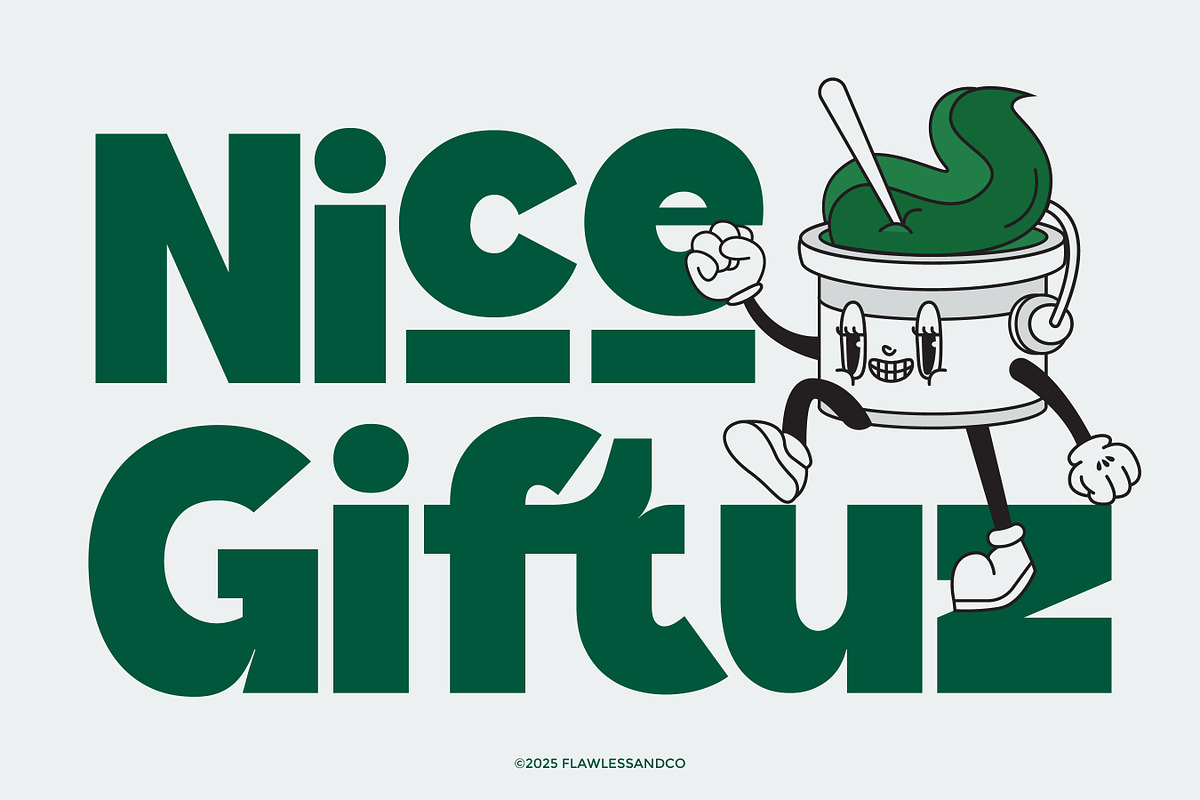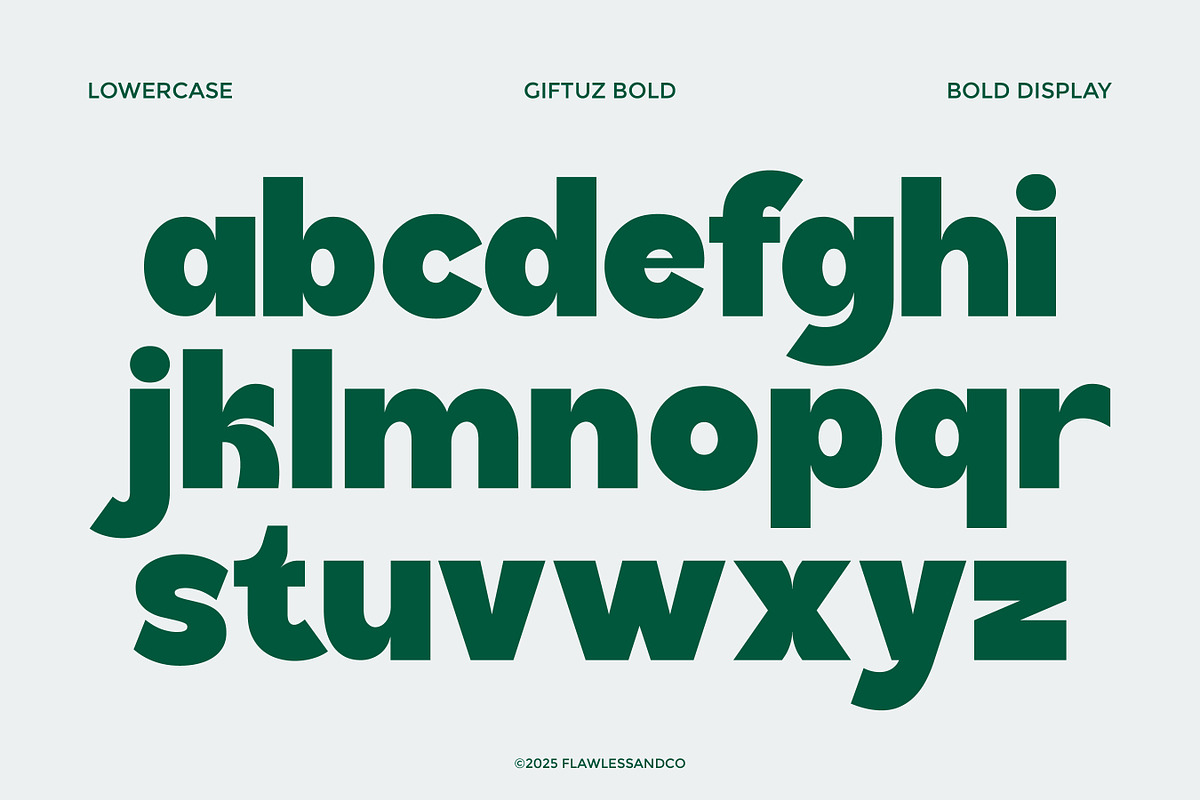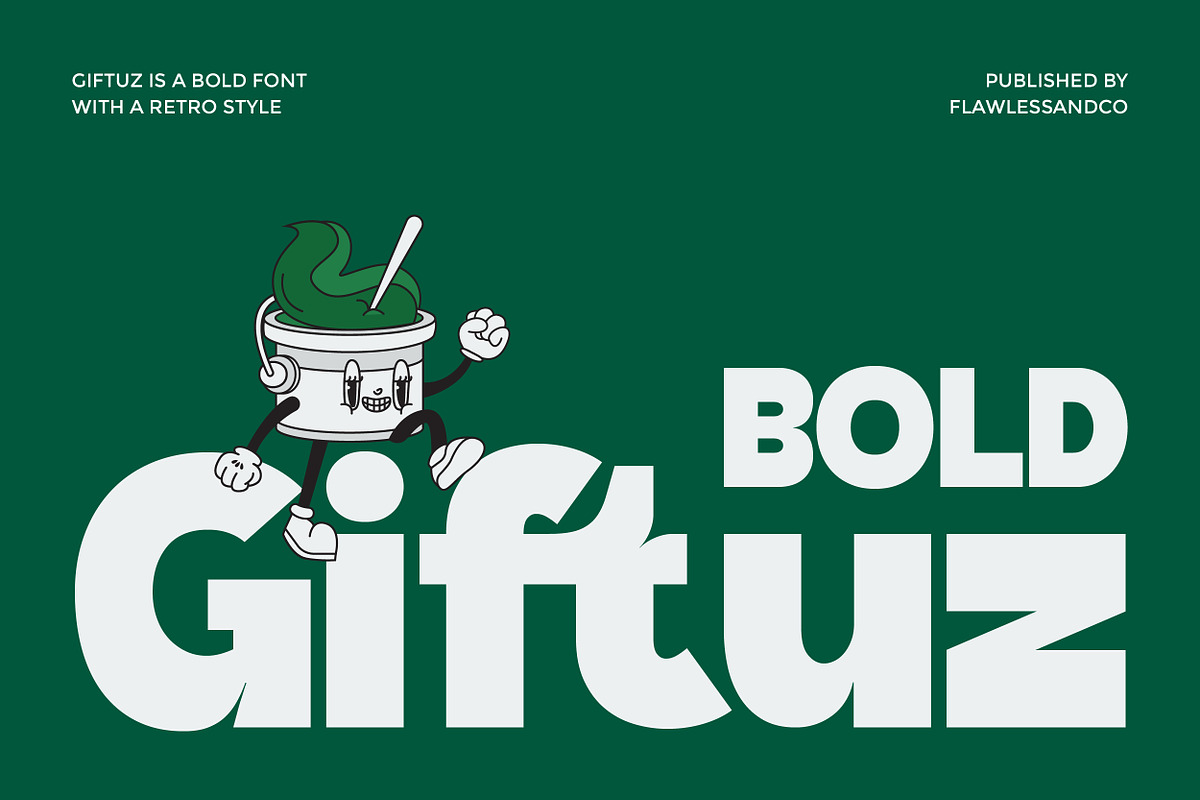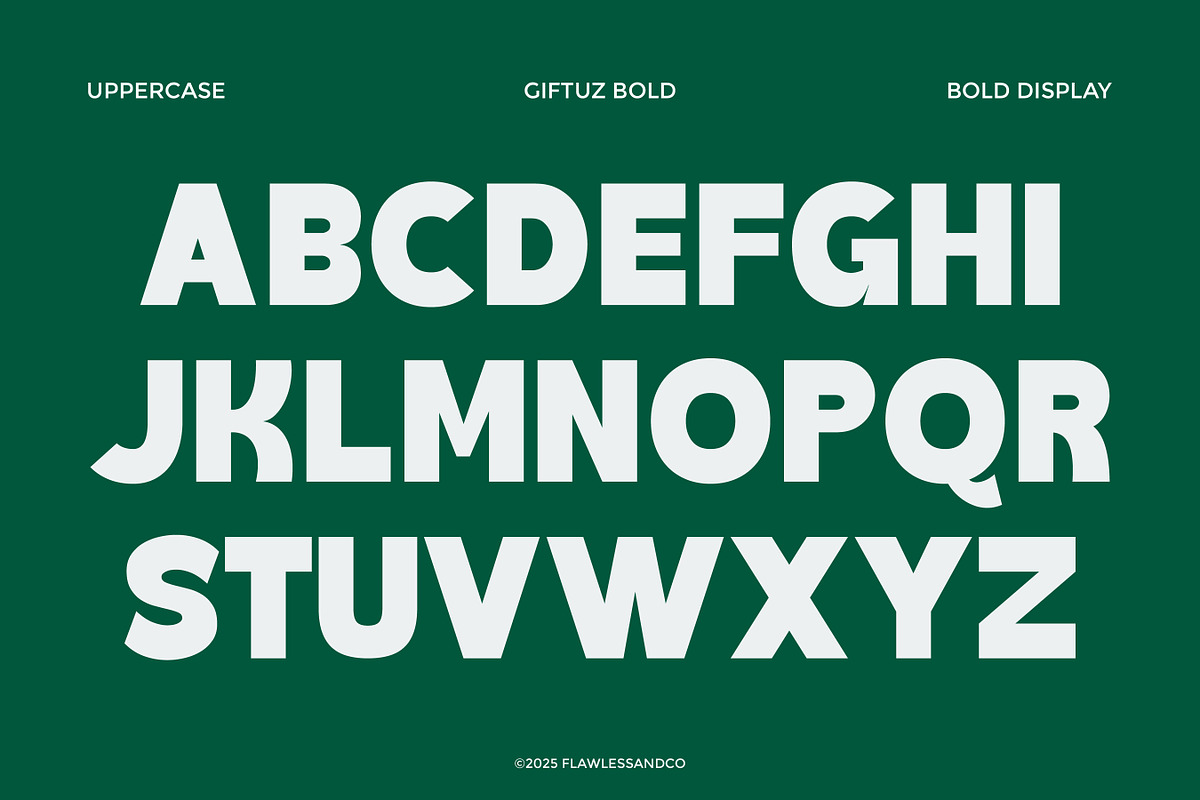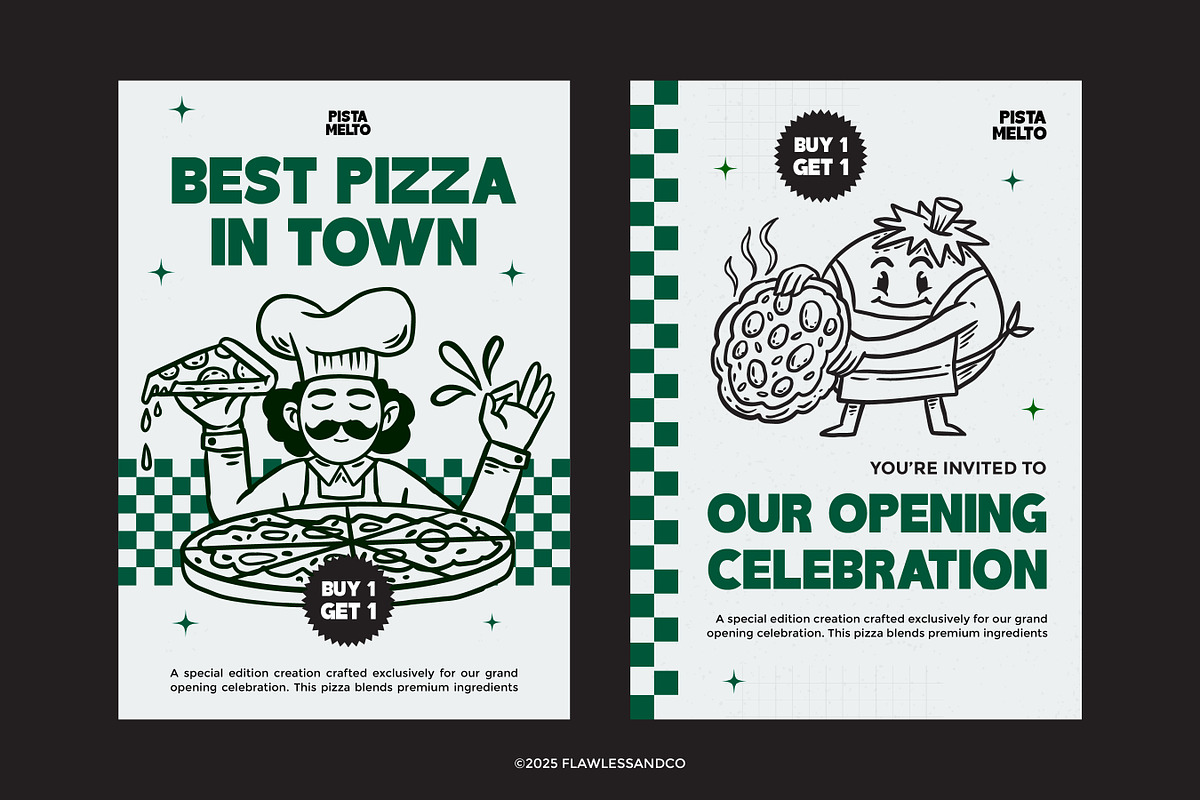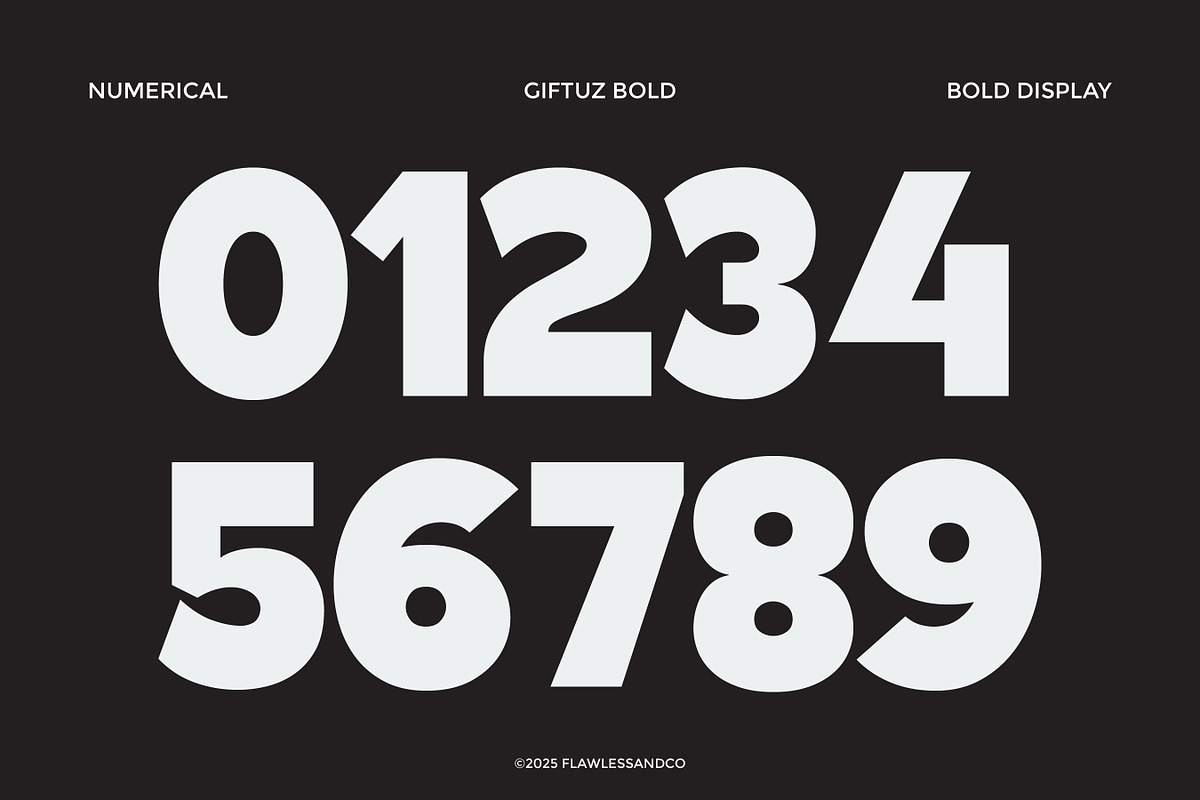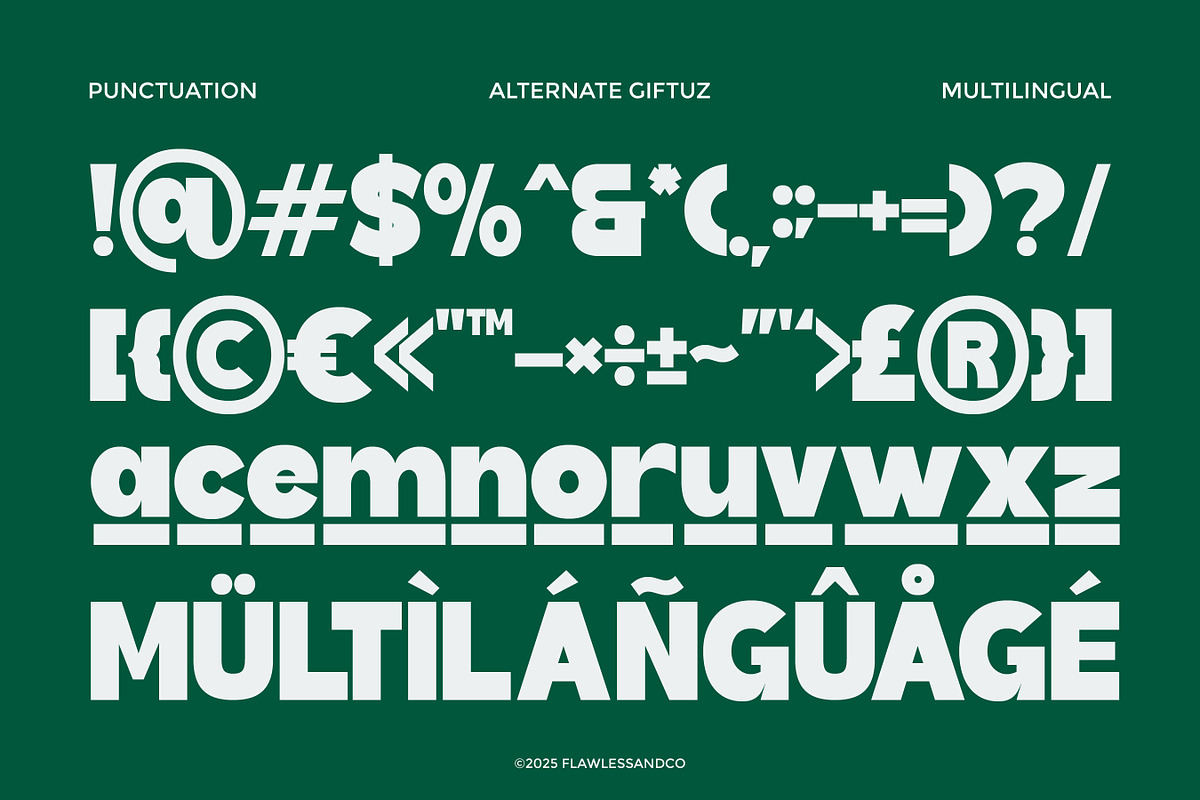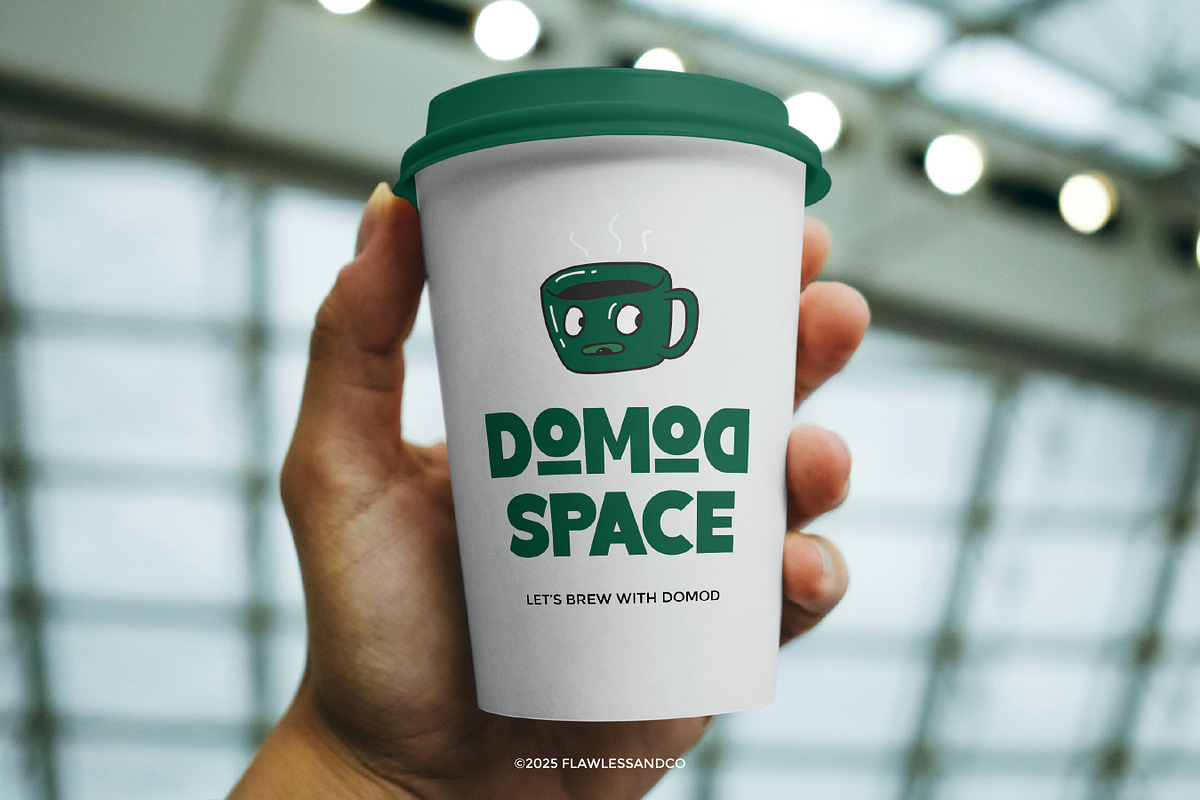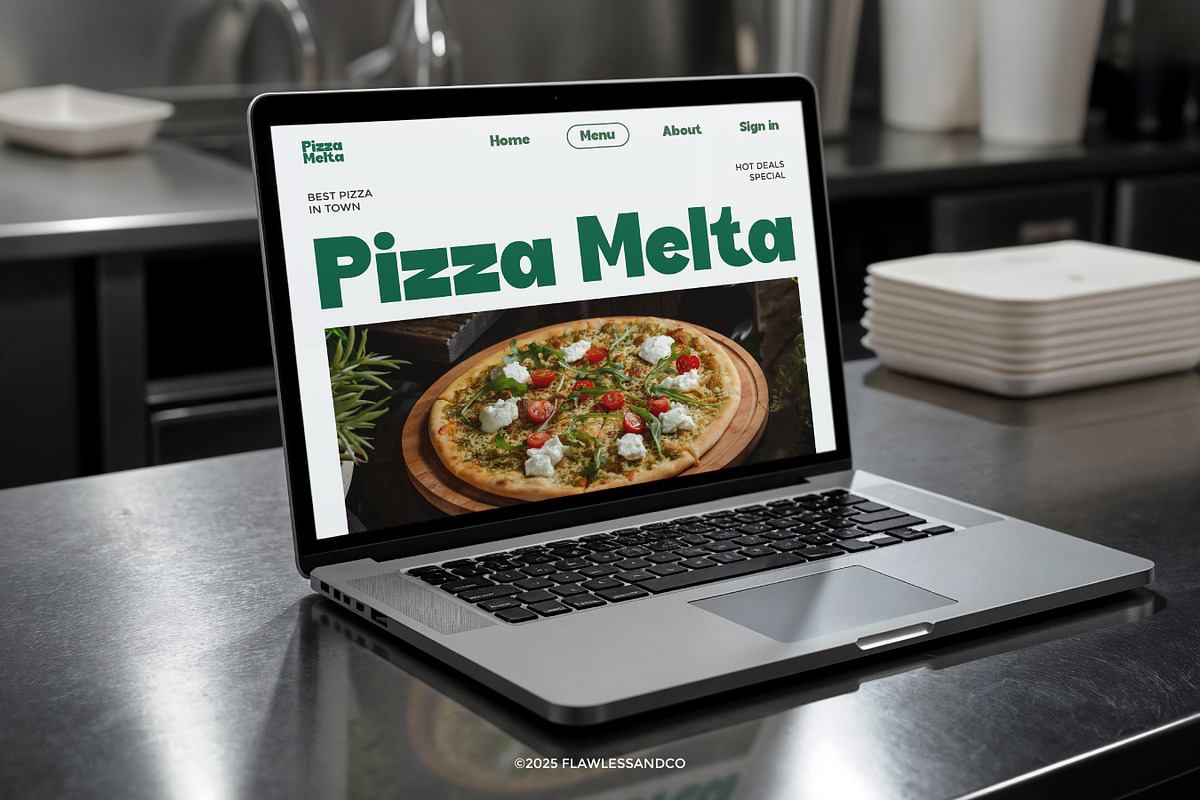
Giftuz - Bold Sans Serif Font
Giftuz – Bold Sans Serif with Retro Energy Giftuz is a bold and playful sans serif font designed to bring strong personality and retro charm into your designs. With thick shapes, smooth curves, and a fun, energetic vibe, Giftuz is perfect for branding that needs to stand out with confidence and character. This font blends modern simplicity with nostalgic style, making it incredibly versatile for bold headlines, creative logos, packaging, posters, merchandise, and anything that calls for a standout, friendly typographic presence. Features: - Uppercase & Lowercase - Alternates & Ligatures - Numerals & Punctuation - Multilingual Support Who Should Use Giftuz? Giftuz is perfect for designers, creators, and brands who want bold visuals with a fun retro touch. It’s especially ideal for those working on playful branding, eye-catching headlines, or creative projects that need strong personality and maximum readability. A Must-Have Font for “Brand and Logo” Creators and Designers Giftuz is the perfect companion for designers who want to create bold, memorable, and highly recognizable brand identities. With its chunky shapes and retro-modern personality, Giftuz brings an instant sense of fun, confidence, and visual impact. Whether you're designing logos, packaging, social media graphics, or playful brand concepts, this font gives your work a strong presence while keeping it friendly and approachable. If you want your branding projects to feel fresh, dynamic, and full of character, Giftuz is a must-have in your creative toolkit. Why Choose Giftuz for “Brand and Logo” Projects? Giftuz stands out as a powerful bold sans serif that instantly elevates any branding project. Its thick, confident letterforms make your logo highly visible and unforgettable, even at small sizes. The balanced proportions and clean shapes ensure your brand feels modern, strong, and full of personality. Giftuz is also incredibly versatile—perfect for minimalist logos, playful brand identities, bold packaging titles, standout social media headers, or any project that needs a striking visual presence. With its unique style and strong character, Giftuz helps your brand communicate clarity, confidence, and creativity all at once. Suitable For - Branding & Logo Design – perfect for bold, memorable brand identities. - Headline & Title Design – impactful look for posters, banners, and large text. - Sports & Athletic Graphics – strong and energetic typography for team branding. - Tech & Gaming Design – modern, sharp visuals for futuristic themes. - Product Packaging – clean and powerful style for modern packaging concepts. - Advertising & Promotional Materials – eye-catching typography for marketing needs. - Website & App Headers – bold presence for digital interfaces. - Social Media Content – striking and professional visuals for feeds and campaigns. If you need help, just write me! Thanks so much for checking out my shop!